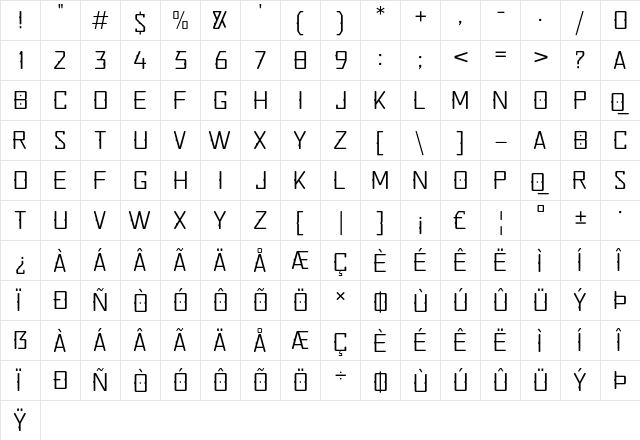
Quirko Light
| Foundry | Shrenik Ganatra |
| Designer | Shrenik Ganatra |
Design Context for Quirko Typeface
Quirko offers clean, dependable letterforms without strong stylistic allegiance, making it a practical choice for designers who need flexibility. Its slender proportions lend an understated elegance to any composition.